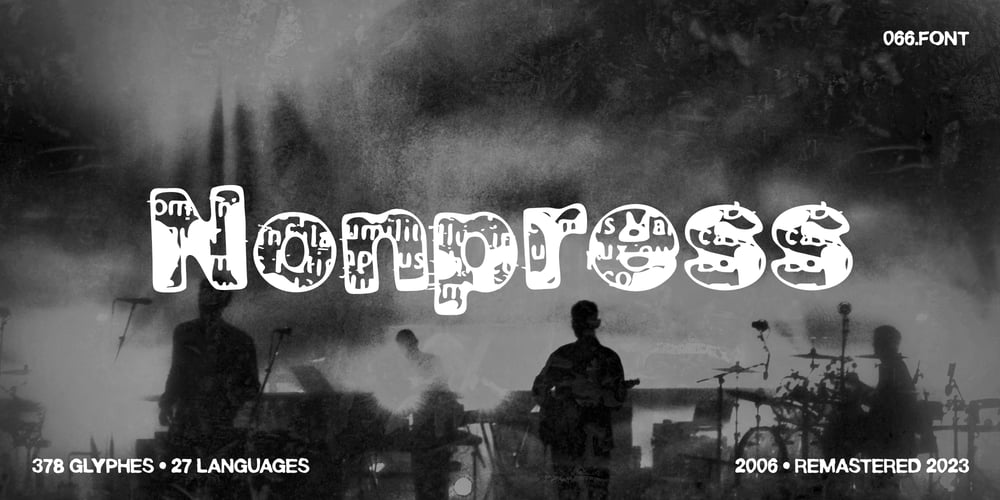
Nonpress Font Family was designed by Piotr Wozniak and published by 066.FONT. Nonpress contains 1 styles and family package options. Nonpress is a display font that draws inspiration from the distinctive aesthetic of 90s zines, and exudes a varied and extravagant style that lends a certain nonchalance to projects. Its expressive and daring letters are perfect for creative projects such as posters, invitations or branding materials. Nonpress perfectly captures the striking look and distinctive character of the text, which is associated with the unique spirit of that decade. Remastered in 2023.